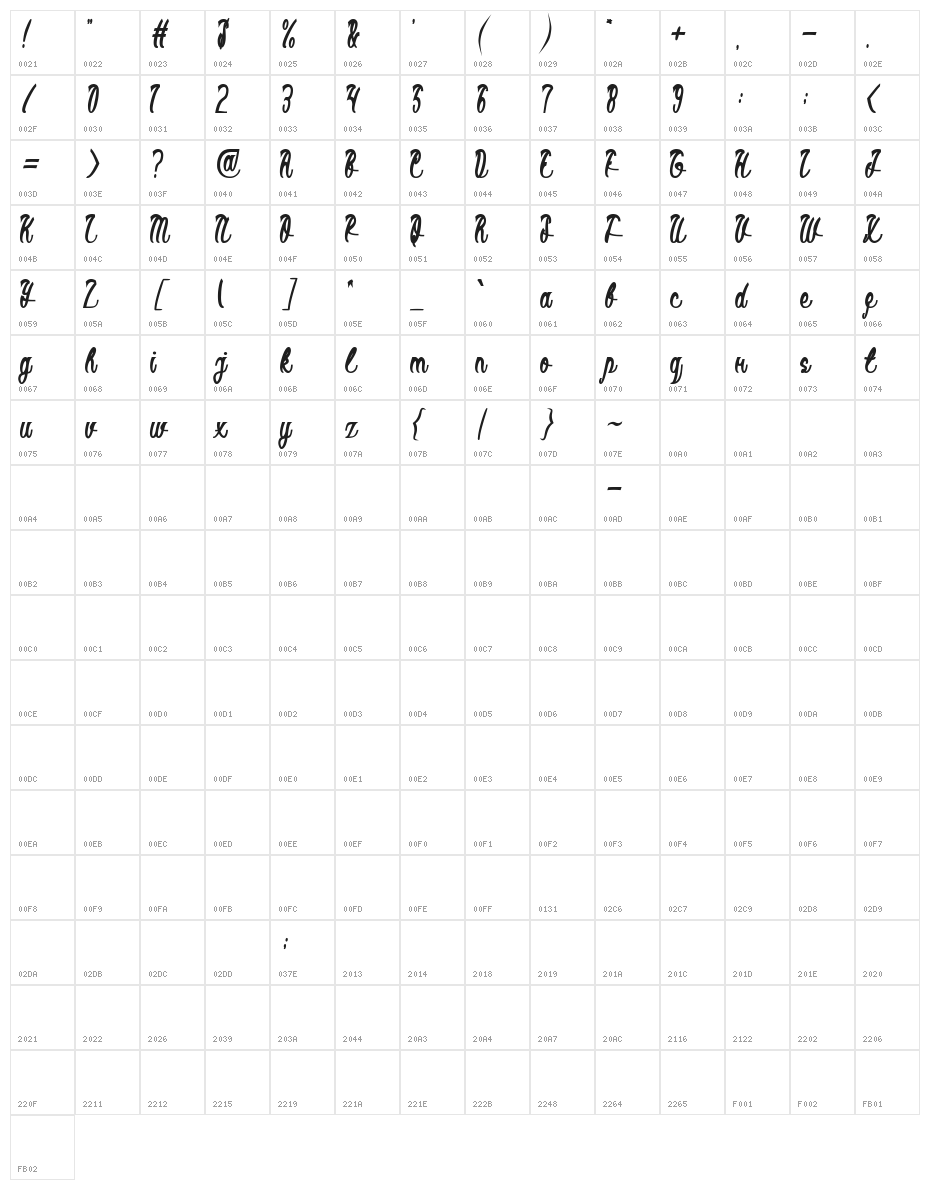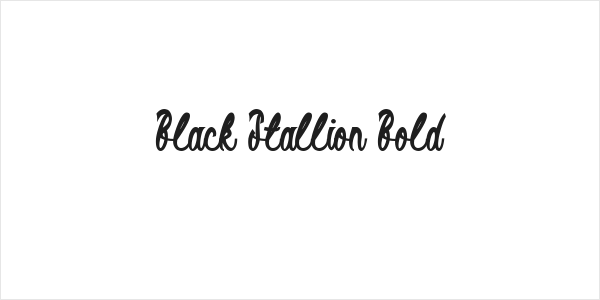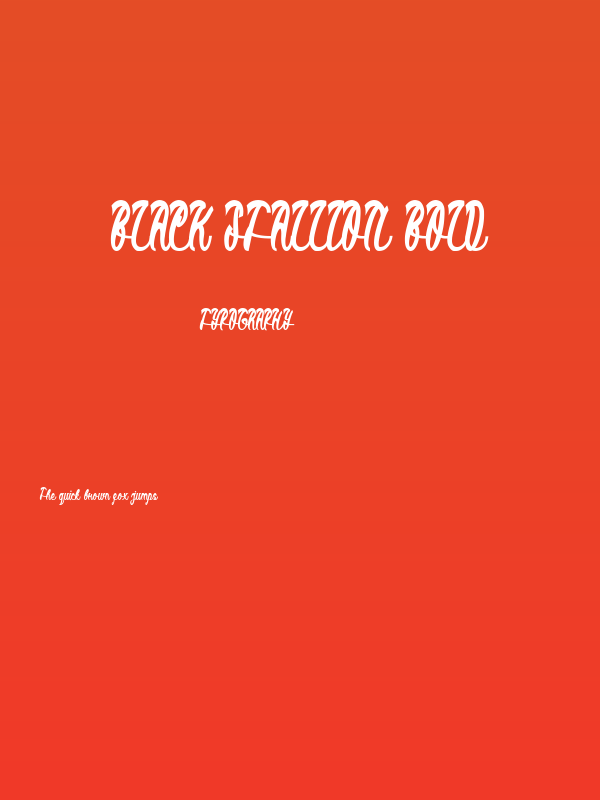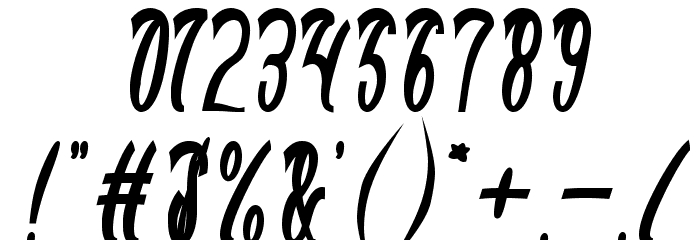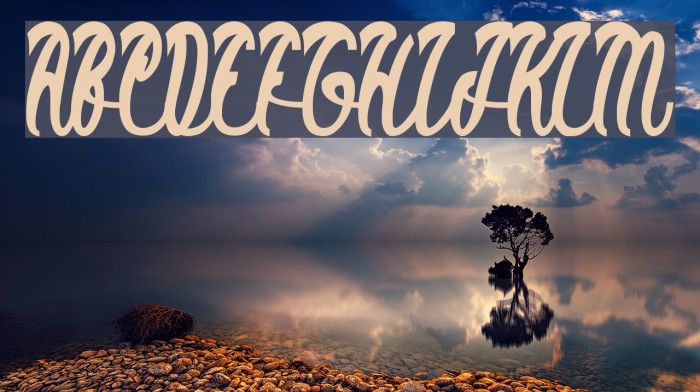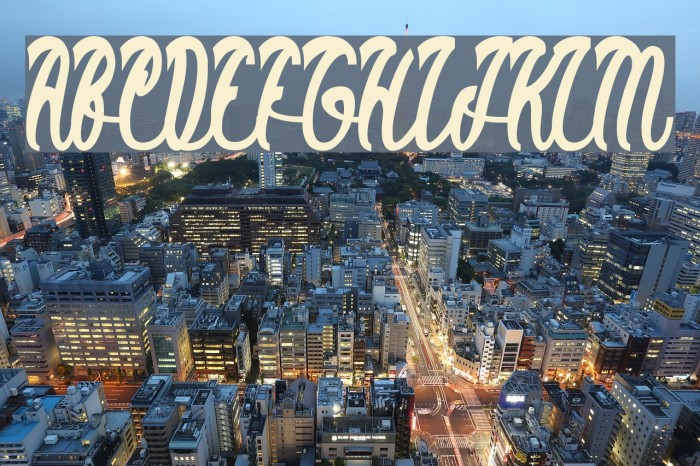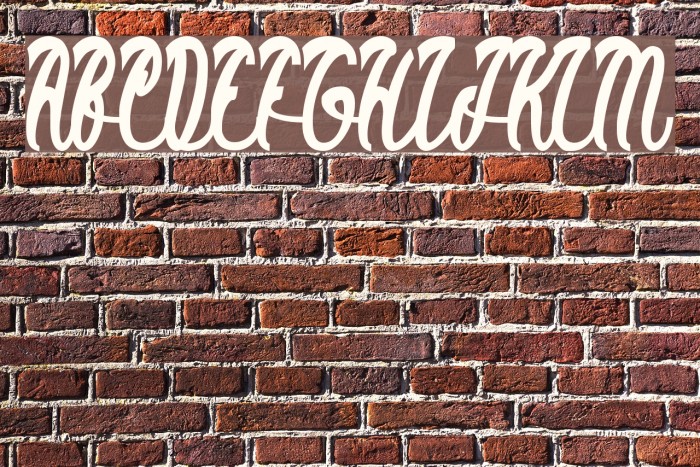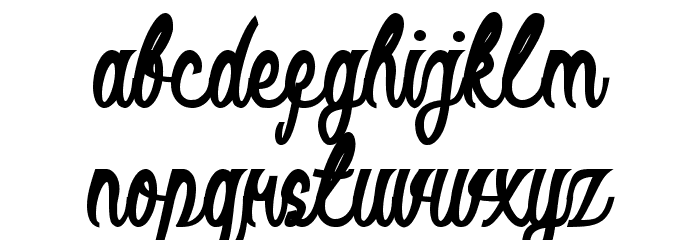
Black Stallion Bold Font
This font features a bold and dynamic script style with a strong presence. The characters are connected, giving it a flowing and continuous appearance. The uppercase letters are tall and elegant, while the lowercase letters maintain a consistent rhythm and balance. The numerals are designed to match the overall style, with a slight slant that adds to the font's energetic feel. Special characters are included, maintaining the same bold and expressive quality. This font is ideal for making a statement with its eye-catching and stylish design.
| Proposed Projects | Ideal for branding, logos, headlines, and any project requiring a bold and stylish script. |